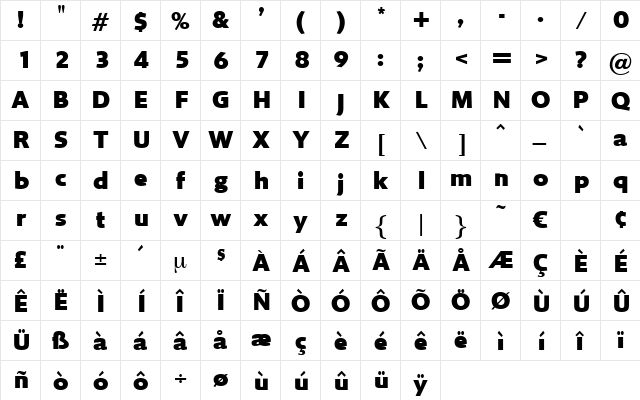
BengasiBold Regular
Design Context for BengasiBold Typeface
BengasiBold offers clean, dependable letterforms without strong stylistic allegiance, making it a practical choice for designers who need flexibility. Its bold stroke weight gives it real presence on the page.
Pro Tip: Use BengasiBold in both headline and body roles to test its range before committing to a single application.